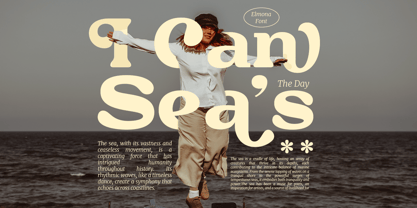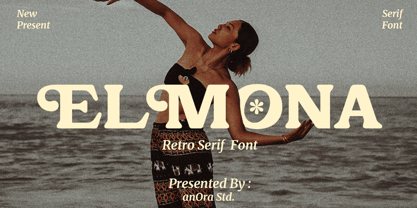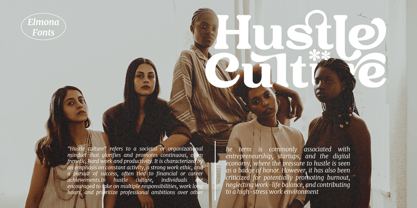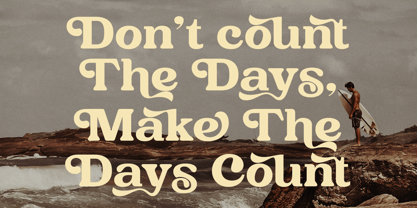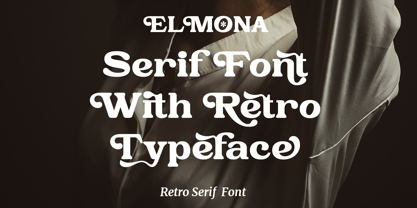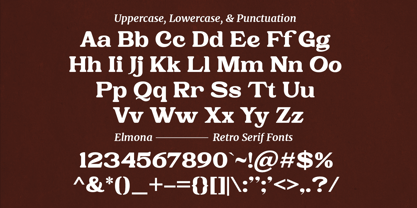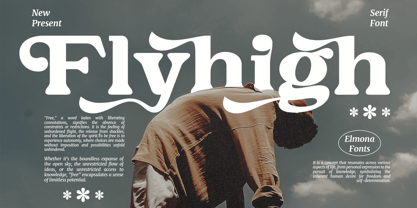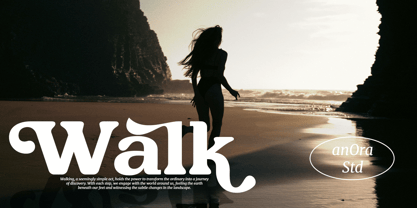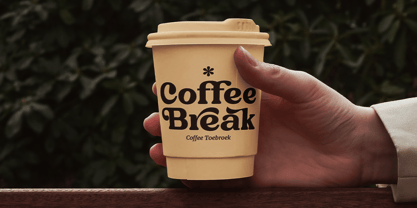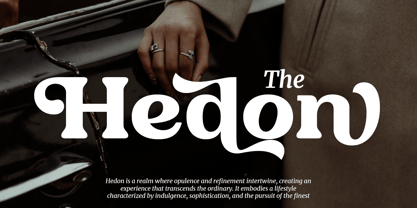
Elmona
by Anora Studio
The Elmona Font Family was designed by Sigit Mulyo Utomo and published by Anora Studio. Elmona contains 1 styles. More about this family
Elmona is a Retro Display Serif Font with Huge Stylistic Alternates.
Designers: Sigit Mulyo Utomo
Foundry: Anora Studio